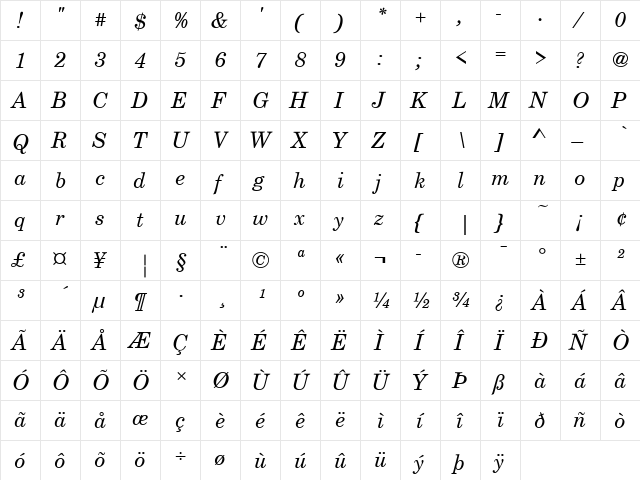
Century Schoolbook T Regular
| Foundry | by URW |
Design Context for Century Schoolbook T Typeface
Century Schoolbook T takes a measured approach to typography — its balanced proportions and neutral character make it a reliable workhorse for both digital and print work.